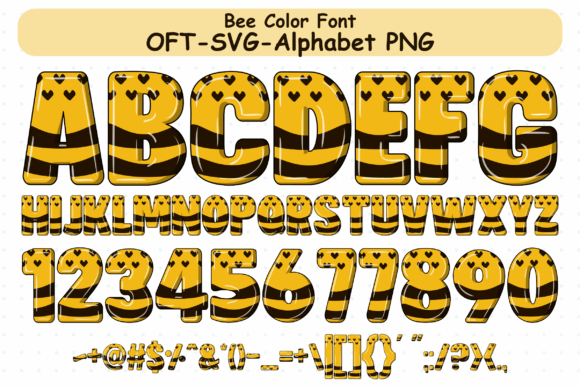
Bee Font
Bee Doodle Alphabet is a cute and colorful color font. It embodies playfulness and authenticity and is the perfect choice for any children activity or school project. Add this chunky lettered font to your designs and notice how it makes them come alive!The black version of this font is compatible with Cricut Design Space and other cutting machines.Note! The color version of this font is only compatible with certain design programs incl. PhotoShop, Illustrator, Silhouette, and Inkscape. The OTF and/or TTF files of the color version are not compatible with Cricut. For more information on how to use this type of font please check our Ultimate Font Guide .